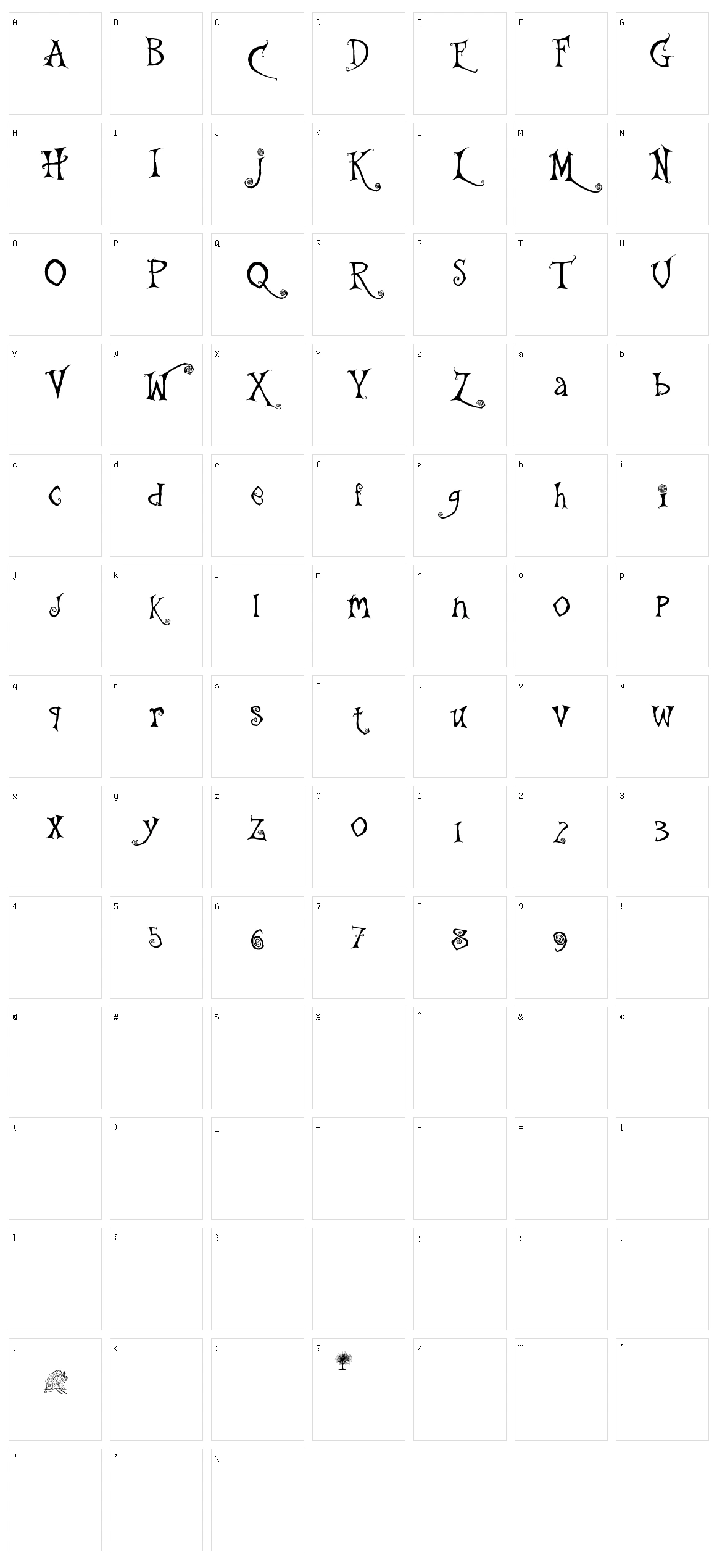
The free font The Gingerbread House is carefully designed by Christopher Hansen, showcasing a thoughtful balance of creativity and usability and falls under the Script font style. When you download the ZIP file, it contains only 31.46 KB of font files, making it lightweight and quick to download. Please review the license details below to understand permitted usage and distribution rights. If license information is not available, we recommend using this font for personal projects only or contacting the author directly for commercial usage permissions.